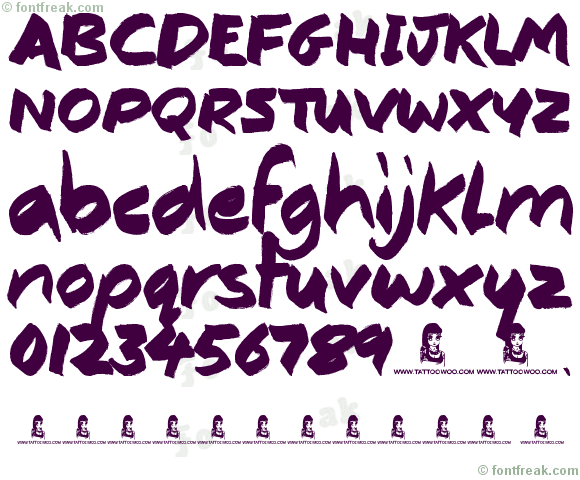
Consistency Measures
The Consistency Measures font, designed by Jonathan S. Harris, is a unique display typeface that exudes a modern and dynamic flair. This font features a bold, handwritten style, giving it an organic and personal touch that sets it apart from traditional typefaces. With a slightly irregular stroke weight and playful contrast, each character appears lively and engaging, making it ideal for capturing attention.
Visually, the Consistency Measures font showcases expressive, rounded forms with a casual elegance. The slight variations in stroke width add depth and character, while the uneven spacing contributes to its informal charm. This makes the font particularly well-suited for projects that call for a more laid-back, creative aesthetic.
Best use cases for the Consistency Measures font include wedding invitations, where its whimsical style can enhance the romantic theme; restaurant menus, where it can bring a unique personality to the dining experience; social media graphics, which benefit from its eye-catching appeal; branding for artisanal products, where a handcrafted feel is desired; and event posters, where the font can help convey excitement and energy.
What truly makes the Consistency Measures font stand out is its ability to balance creativity with readability. It offers a fresh perspective that can elevate any design while maintaining clarity. With a Consistency Measures font free download option, it is easily accessible for anyone looking to incorporate a distinctive and lively typeface into their work.